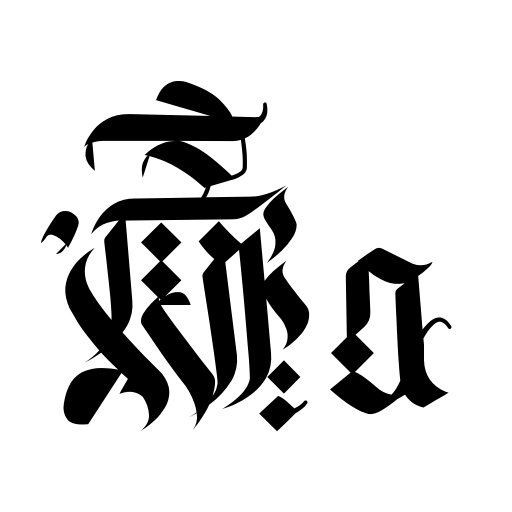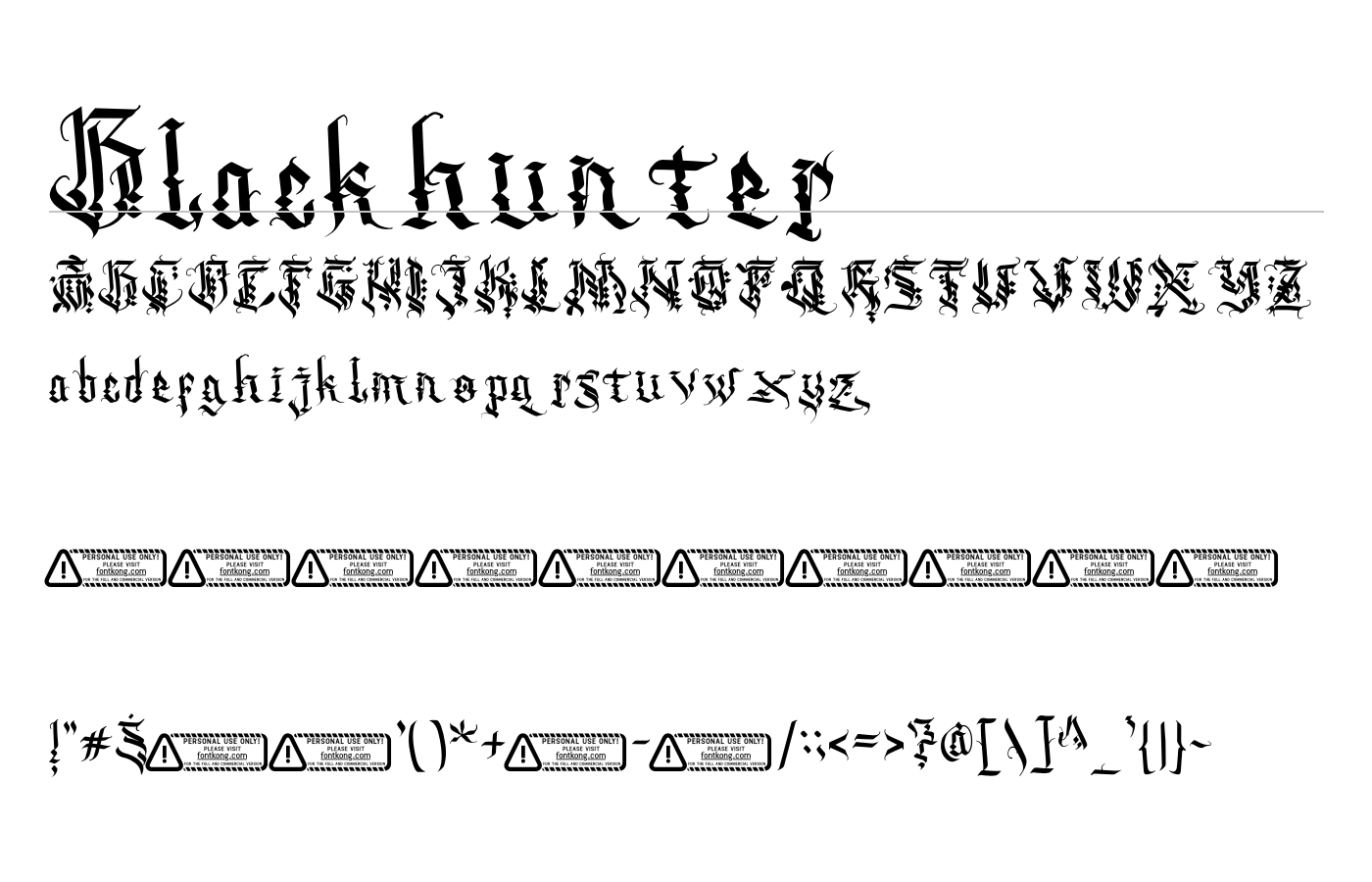
Blackhunter is a bold blackletter-style font with intricate, sharp strokes and dramatic flourishes that evoke a gothic, medieval vibe. Its detailed uppercase and lowercase characters create a strong, historical aesthetic, making it ideal for vintage branding, tattoo art, or any design looking to convey a dark, mysterious, and regal atmosphere. This font works best in headlines, logos, or decorative uses where its ornate style can stand out without compromising readability.
Blackhunter Font
About Blackhunter Font